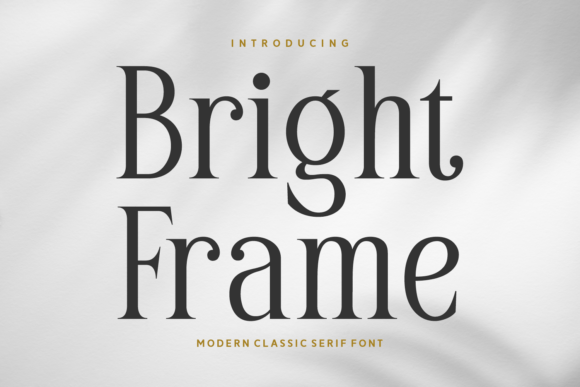
Introducing Bright Frame Font: A Modern Classic Serif for Elegant Designs
In the world of typography, fonts play a crucial role in conveying the tone and personality of a brand or design. A well-crafted font can elevate a project from ordinary to extraordinary, making it essential to choose the right one. In this article, we’ll introduce you to Bright Frame Font, a modern classic serif font that embodies elegance, sophistication, and a timeless yet contemporary aesthetic.
What is Bright Frame Font?
Bright Frame Font is a carefully crafted serif font that combines the best of traditional typography with modern design principles. Its letterforms are designed to be graceful and balanced, making it perfect for a wide range of applications, from luxury brands to editorial designs.
The font’s design is characterized by its elegant and sophisticated feel, which is achieved through its refined lines, precise curves, and generous spacing. The result is a font that exudes a sense of airiness and lightness, making it easy to read and visually appealing.
Key Features of Bright Frame Font
- Modern Classic Serif: Bright Frame Font is a modern take on traditional serif fonts, with a unique blend of classic and contemporary elements.
- Elegant and Sophisticated: The font’s refined design and precise lines give it an air of elegance and sophistication, making it perfect for high-end brands and designs.
- Timeless yet Contemporary: Bright Frame Font’s design is both timeless and contemporary, making it suitable for a wide range of applications, from traditional print designs to modern digital projects.
- Graceful and Balanced: The font’s letterforms are carefully crafted to be graceful and balanced, ensuring that text flows smoothly and is easy to read.
Uses of Bright Frame Font
Bright Frame Font is a versatile font that can be used in a variety of applications, including:
- Luxury Brands: The font’s elegant and sophisticated design makes it perfect for luxury brands looking to convey a sense of high-end quality and refinement.
- Editorial Designs: Bright Frame Font is well-suited for editorial designs, such as magazines, newspapers, and books, where its elegant design and precise lines can enhance the reading experience.
- Digital Designs: The font’s modern design and clean lines make it suitable for digital designs, such as websites, apps, and social media graphics.
- Advertising: Bright Frame Font can be used in advertising materials, such as billboards, posters, and flyers, to add a touch of elegance and sophistication.
Benefits of Using Bright Frame Font
Using Bright Frame Font in your designs can bring several benefits, including:
- Enhanced Readability: The font’s clear and precise design makes it easy to read, even at small sizes.
- Improved Brand Image: Bright Frame Font’s elegant and sophisticated design can help to enhance your brand’s image and convey a sense of high-end quality.
- Flexibility: The font’s versatility makes it suitable for a wide range of applications, from print to digital designs.
- Unique Design: Bright Frame Font’s unique design sets it apart from other fonts, making it a great choice for designers looking to create distinctive and memorable designs.
Tips for Using Bright Frame Font
To get the most out of Bright Frame Font, here are some tips to keep in mind:
- Use it Sparingly: Bright Frame Font is a elegant and sophisticated font, so use it sparingly to avoid overwhelming the design.
- Pair it with Other Fonts: Experiment with pairing Bright Frame Font with other fonts to create a unique and visually appealing design.
- Adjust the Size: Adjust the font size to suit the application, using larger sizes for headings and smaller sizes for body text.
- Pay Attention to Line Spacing: Pay attention to line spacing to ensure that the text flows smoothly and is easy to read.
Bright Frame Font is a modern classic serif font that embodies elegance, sophistication, and a timeless yet contemporary aesthetic. Its refined design, precise lines, and generous spacing make it perfect for a wide range of applications, from luxury brands to editorial designs. By using Bright Frame Font in your designs, you can enhance readability, improve your brand image, and create unique and memorable designs.
An Introductory Image for Bright Frame Font
To give you a better sense of Bright Frame Font’s design and aesthetic, here is an introductory image that showcases the font’s elegant and sophisticated feel: